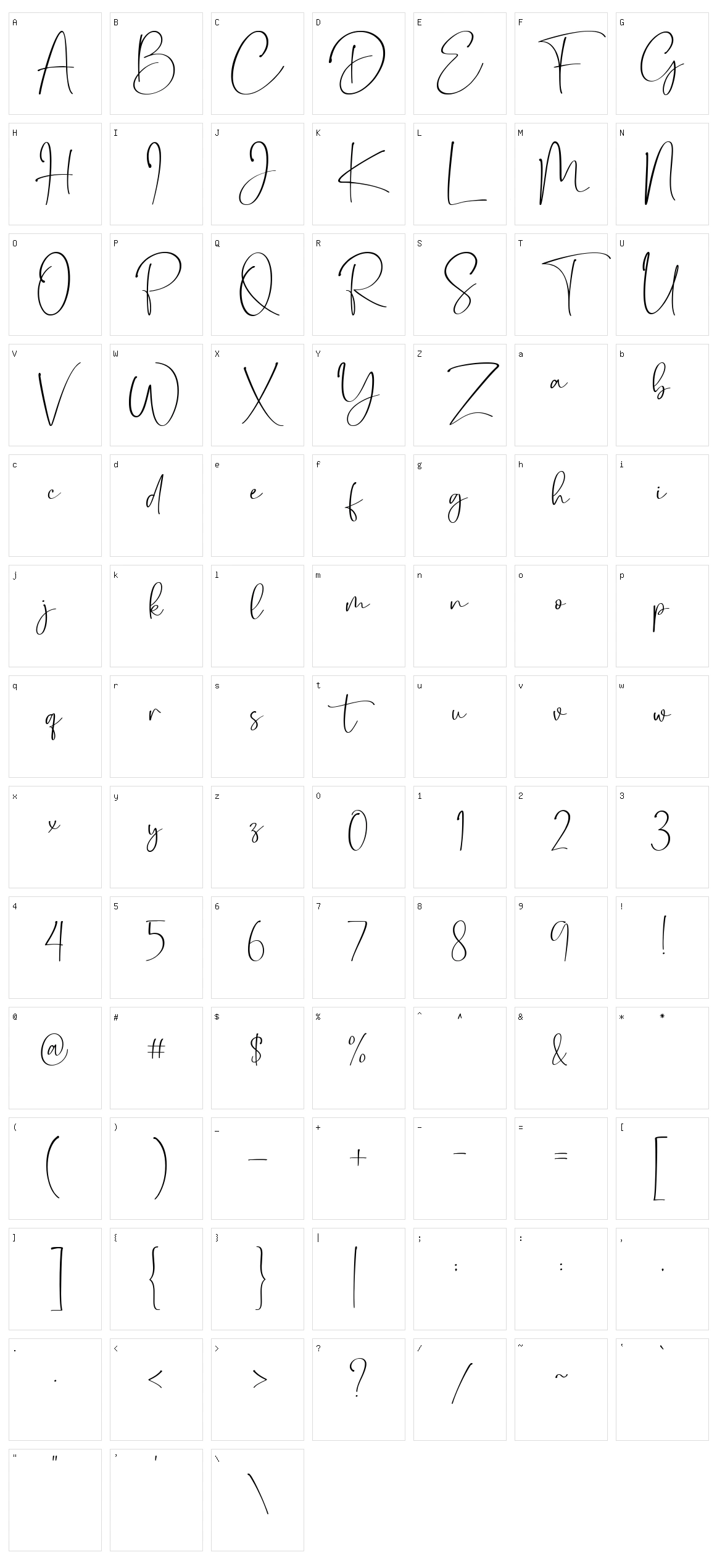
The free font Dashinta is carefully designed by Dav studio, showcasing a thoughtful balance of creativity and usability and falls under the Script font style. When you download the ZIP file, it contains only 94.12 KB of font files, making it lightweight and quick to download. Please review the license details below to understand permitted usage and distribution rights. If license information is not available, we recommend using this font for personal projects only or contacting the author directly for commercial usage permissions.